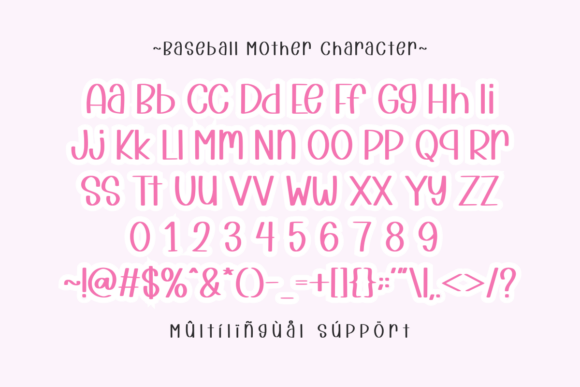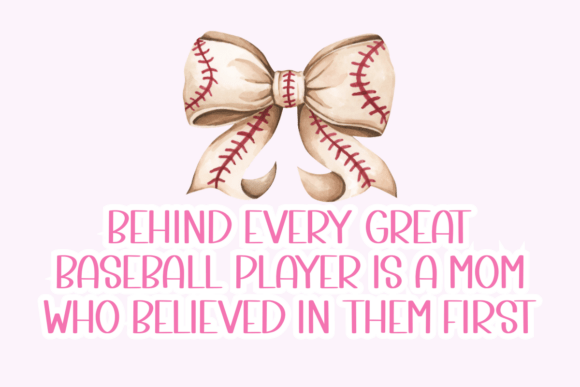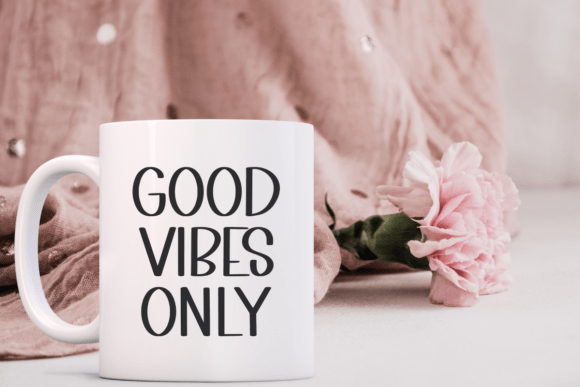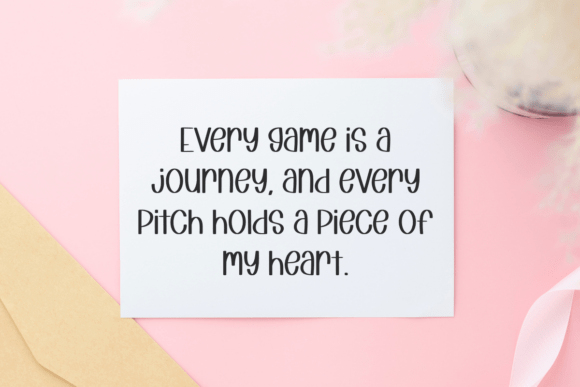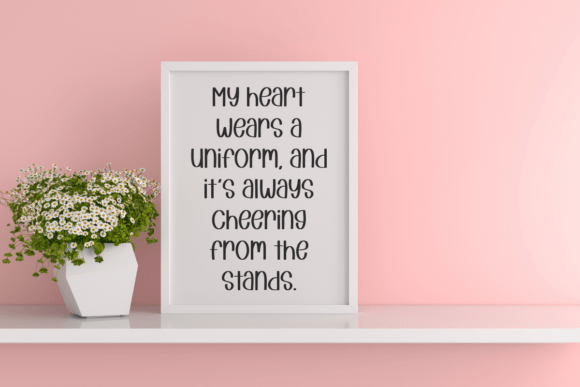
Introducing Baseball Mother Font: The Perfect Choice for Designers and Crafters
Are you a designer or crafter looking for a unique and versatile font to elevate your creative projects? Look no further than the Baseball Mother Font, a cute and minimalist sans serif font that’s perfect for a wide range of applications. In this article, we’ll explore the features and benefits of this fantastic font, and show you how to use it to create spectacular and interesting designs.
What is Baseball Mother Font?
Baseball Mother Font is a modern sans serif font that’s characterized by its clean lines, simple shapes, and adorable charm. This font is designed to be highly legible and versatile, making it perfect for use in a variety of creative projects, from greeting cards and wedding invitations to gift labels, mugs, t-shirts, and more.
Key Features of Baseball Mother Font
- Cute and Minimalist Design: Baseball Mother Font features a unique and stylish design that’s both cute and minimalist. Its simple shapes and clean lines make it perfect for creating modern and elegant designs.
- Sans Serif Style: This font is a sans serif font, which means it doesn’t have any decorative lines or flourishes. This makes it highly legible and perfect for use in digital and print designs.
- Highly Versatile: Baseball Mother Font is an extremely versatile font that can be used in a wide range of creative projects, from stationery and invitations to apparel and accessories.
- Easily Customizable: This font is highly customizable, allowing you to adjust the size, color, and style to suit your design needs.
Uses for Baseball Mother Font
Baseball Mother Font is perfect for a wide range of creative projects, including:
- Greeting Cards: Create beautiful and heartfelt greeting cards for special occasions like birthdays, holidays, and weddings.
- Wedding Invitations: Use this font to create stunning wedding invitations that set the tone for your special day.
- Gift Labels: Add a personal touch to your gifts with custom labels featuring the Baseball Mother Font.
- Mugs and T-Shirts: Create eye-catching and unique designs for mugs and t-shirts that make great gifts or promotional items.
- Quotes and Posters: Use this font to create inspiring and motivational quotes and posters that are perfect for social media or office decor.
Tips for Using Baseball Mother Font
Here are some tips for getting the most out of the Baseball Mother Font:
- Experiment with Colors: Try pairing the font with different colors and textures to create unique and eye-catching designs.
- Play with Sizes: Experiment with different font sizes to create visual interest and hierarchy in your designs.
- Add Decorative Elements: Consider adding decorative elements like illustrations or graphics to enhance your designs and make them more engaging.
In conclusion, the Baseball Mother Font is a versatile and adorable font that’s perfect for designers and crafters looking to create unique and engaging designs. With its clean lines, simple shapes, and highly legible style, this font is ideal for a wide range of creative projects, from greeting cards and wedding invitations to gift labels, mugs, t-shirts, and more. So why wait? Download the Baseball Mother Font today and start creating spectacular and interesting designs!